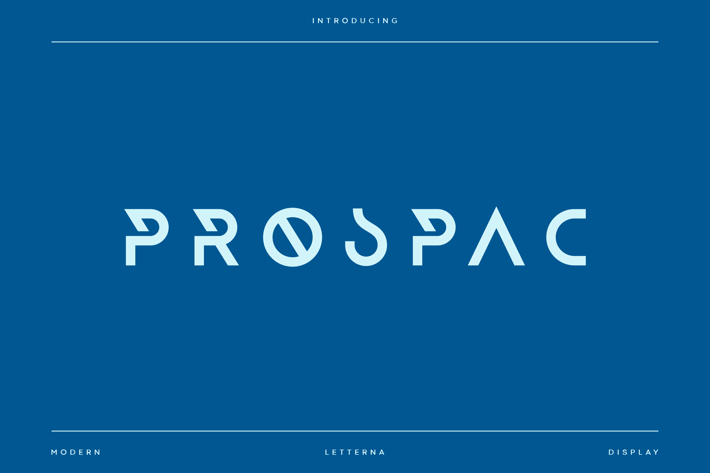
Prospac - Modern Futuristic Font
Prospac is a stylish, clean, minimalistic font that still looks luxurious and elegant, present in two unique styles with dynamic cuts. This font is suitable for use in future business, branding, logos, brochures, posters, etc. Geometric sans and unfinished impressions provide a sophisticated effect, a harmonious combination of uppercase and lowercase matching accents support the best legibility. The purpose of this font is to become a universal weapon not only in future designs, because it works well in headlines, titles, but also because of its subtle neutrality.